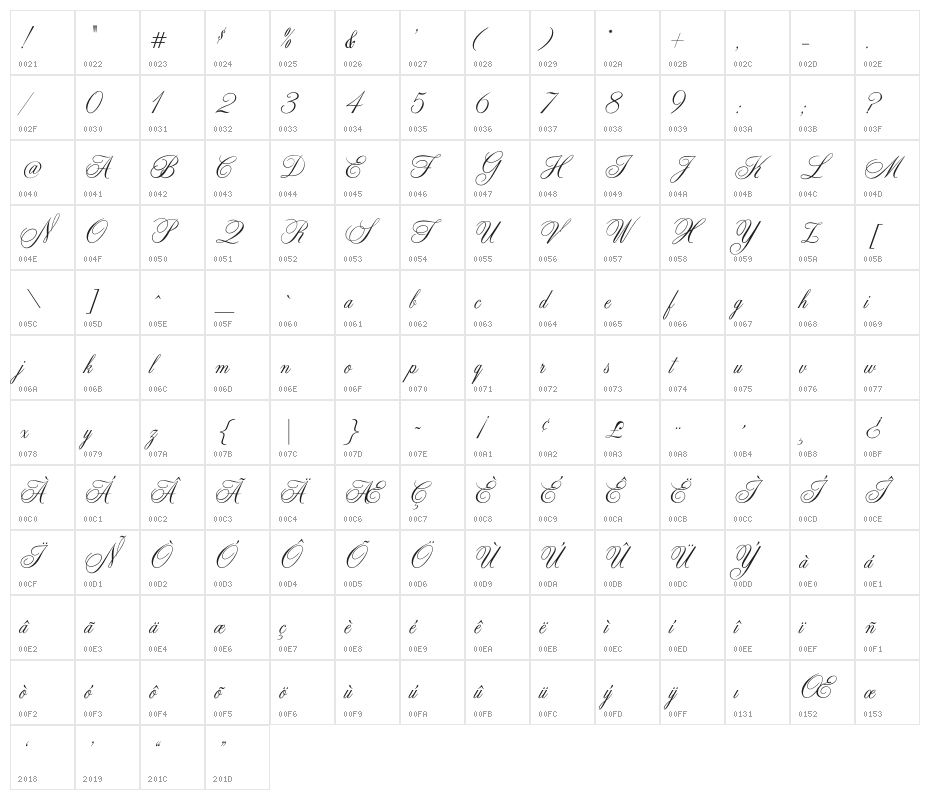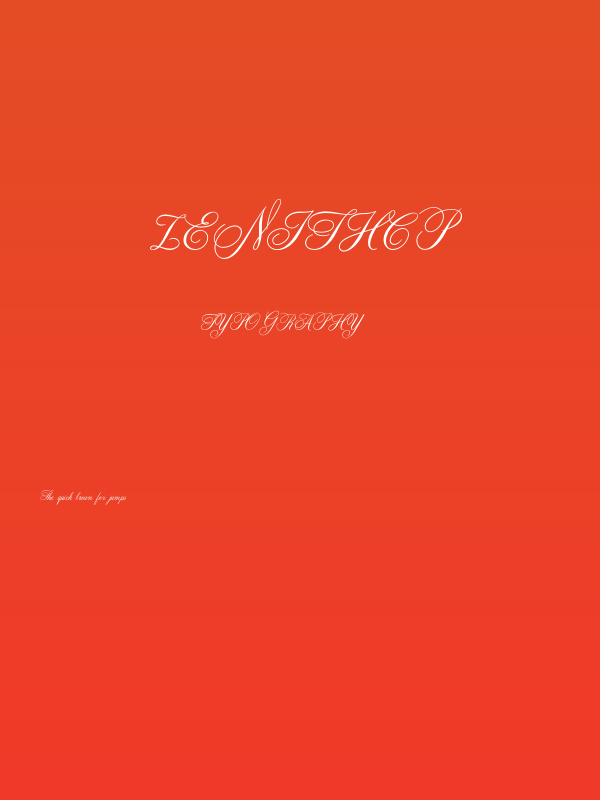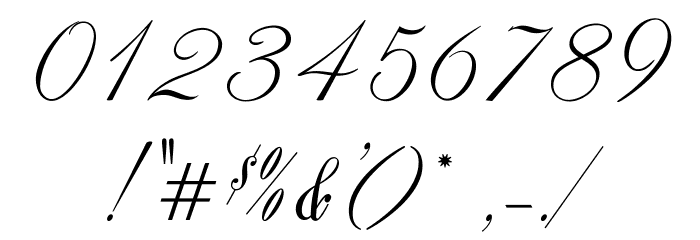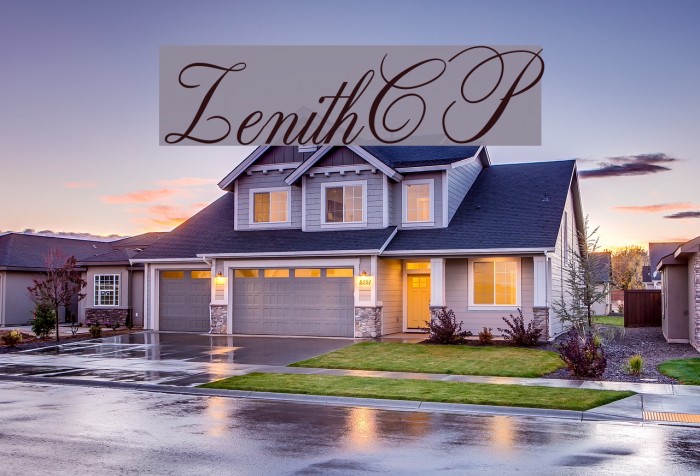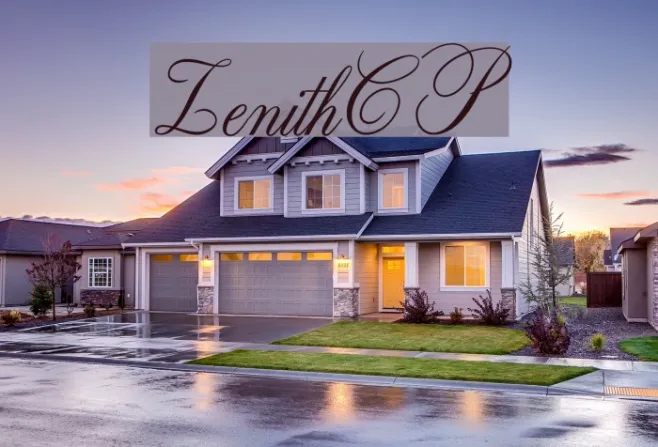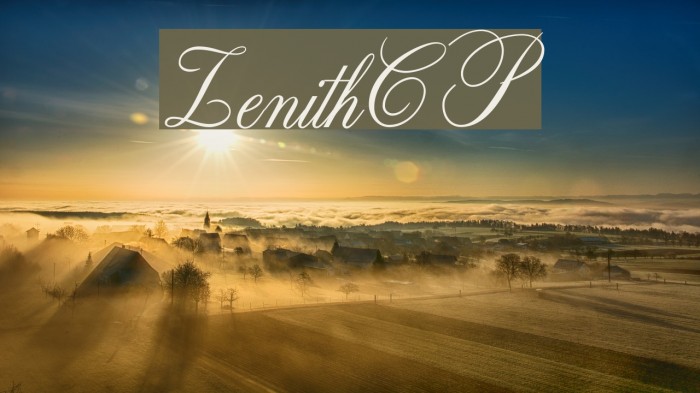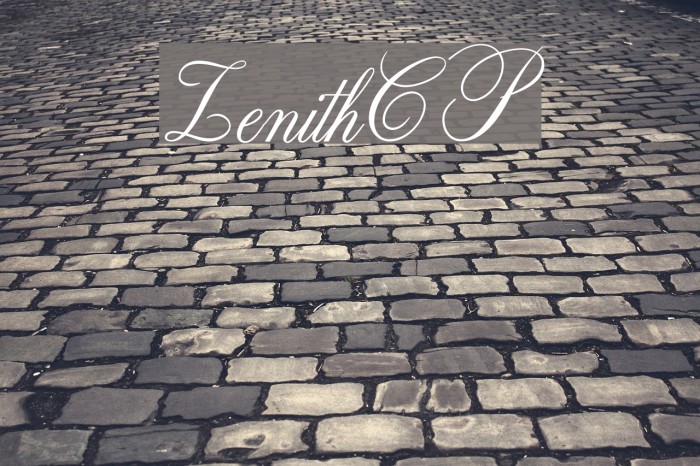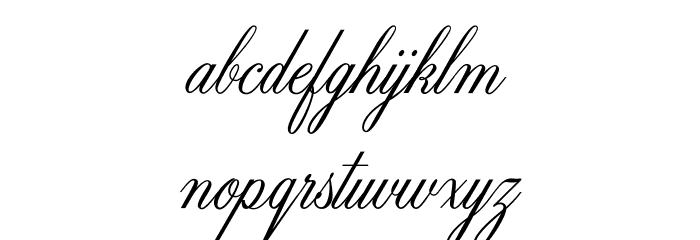
ZenithCP Font
ZenithCP Description
This elegant script font features flowing, cursive letterforms with a refined and sophisticated appearance. The uppercase letters are characterized by their intricate loops and swirls, adding a touch of luxury and grace. The lowercase letters maintain a consistent flow, enhancing readability while preserving the font's decorative nature. Numbers and special characters are designed with the same attention to detail, ensuring a cohesive look across all text. The font's delicate strokes and high contrast between thick and thin lines contribute to its overall elegance, making it suitable for formal and stylish applications.
| Overall Style | Elegant |
| Use Case | Logos, Invitations, Branding |
| Proposed Projects | Ideal for wedding invitations, luxury branding, elegant stationery, and high-end product packaging. |